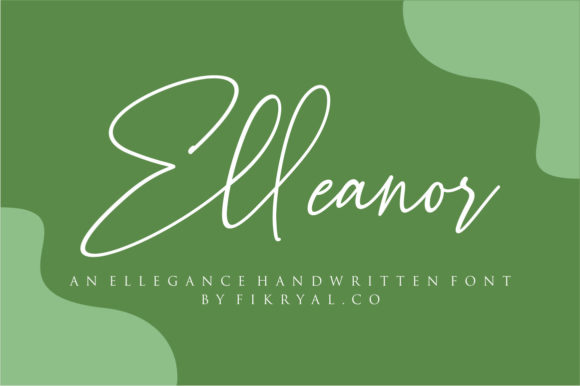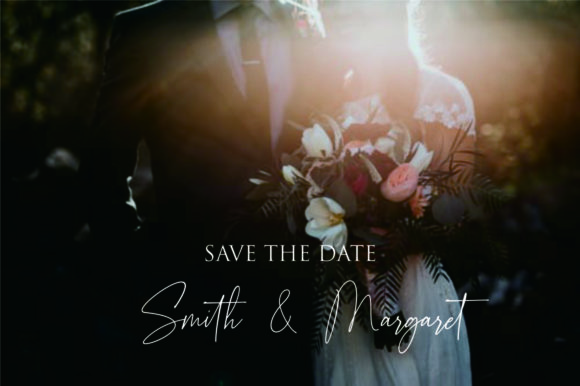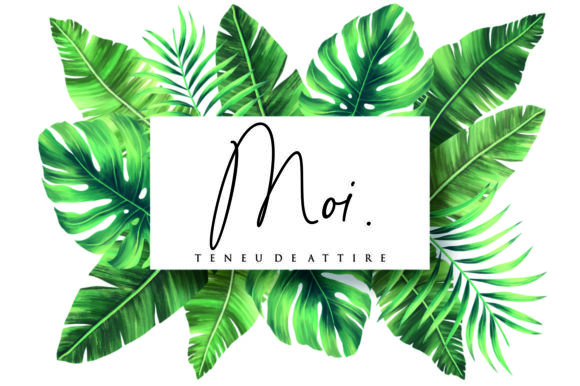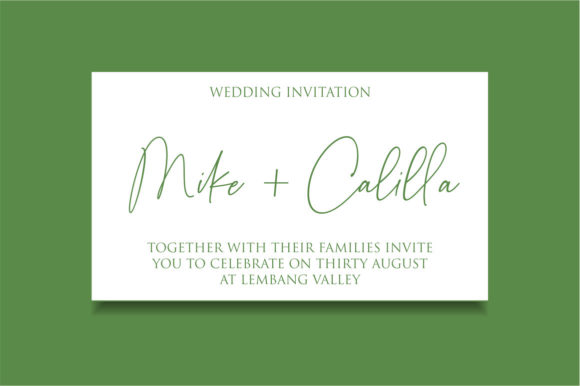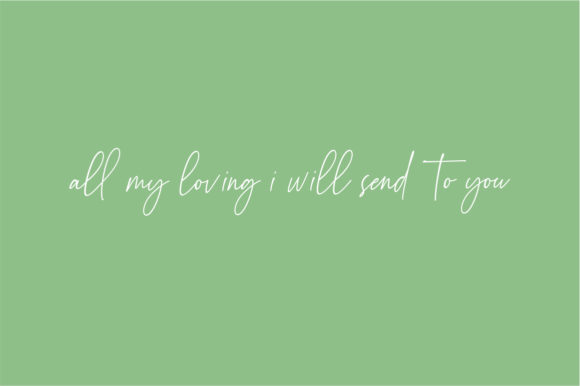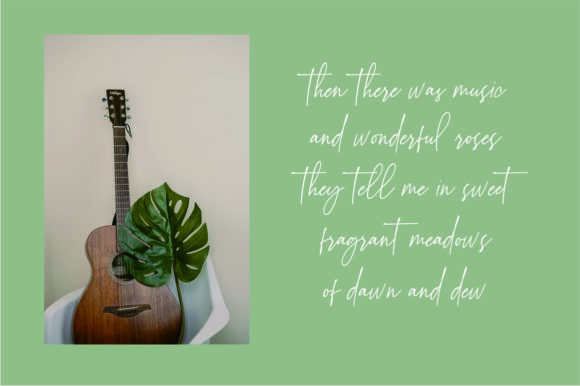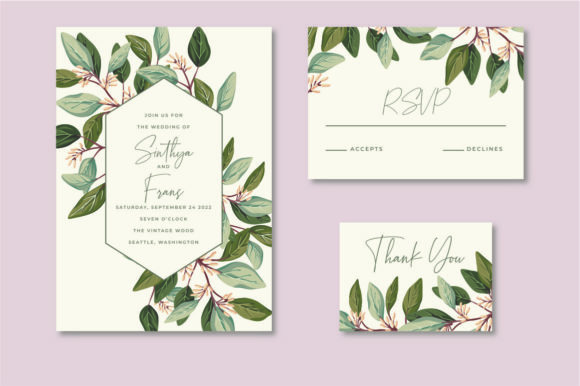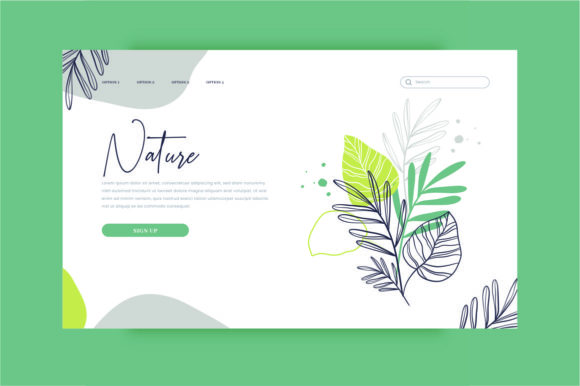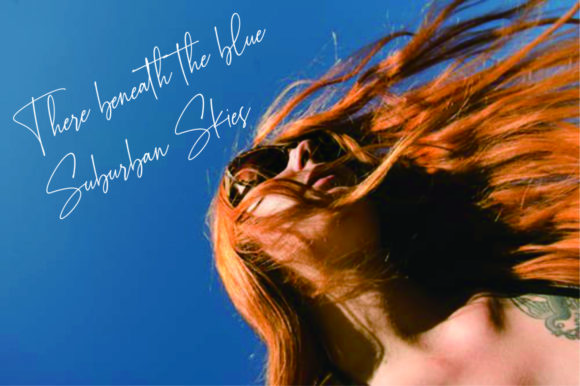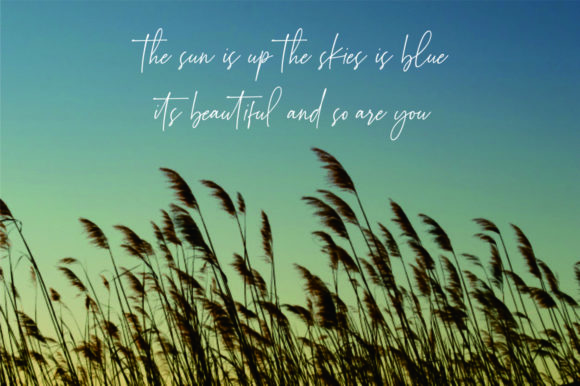
HomeScript FontsElleanor Font Script Fonts Elleanor Font FacebookXPinterestWhatsApp Elleanor Font Poster 2 Elleanor Font Poster 3 Elleanor Font Poster 4 Elleanor Font Poster 5 Elleanor Font Poster 6 Elleanor Font Poster 7 Elleanor Font Poster 8 Elleanor Font Poster 9 Elleanor Font Poster 10 About Elleanor Font Elleanor is a fresh, modern, and stylish handwritten font. Fall in love with its charming appeal! DOWNLOAD ON CREATIVE FABRICAThis font is sold and delivered by Creative Fabrica. Font Canyon may earn a commission if you buy through this link. People also explored Crispy Corn Font Virtuos Font Sale! Westman – Classic Vintage Slab Font Laro Font Helio Font Chicago Grunge Font Ellies Font Kamelia Font Maqella Font 292 0 TagsElleanor Font Previous articleAgatha FontNext articleStanburghe Font LEAVE A REPLY Cancel reply Comment: Please enter your comment! Name:* Please enter your name here Email:* You have entered an incorrect email address! Please enter your email address here Website: Save my name, email, and website in this browser for the next time I comment. Personal Use Free Luxima Personal Use Free Read more about this font Calling Personal Use Free Read more about this font Adventure Font Personal Use Free Read more about this font Houstonville Personal Use Free Read more about this font BLOG Top 7 Google Fonts Alternatives for Faster and Privacy-Friendly Web Design (2025) Top 7 Google Fonts Alternatives for Faster and Privacy-Friendly Web Design (2025) When it comes to web typography, Google Fonts has long been the go-to... Exploring Font Trends Where to Buy American Fonts Online in 2024 Transform Your Website: Elevate Your Typography with 7 Best Web Font Generators